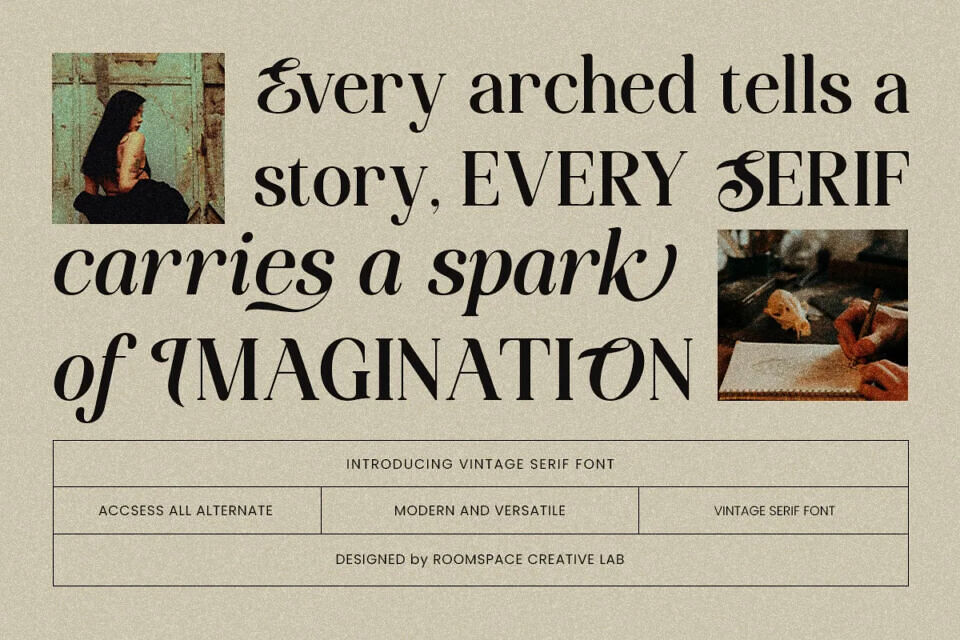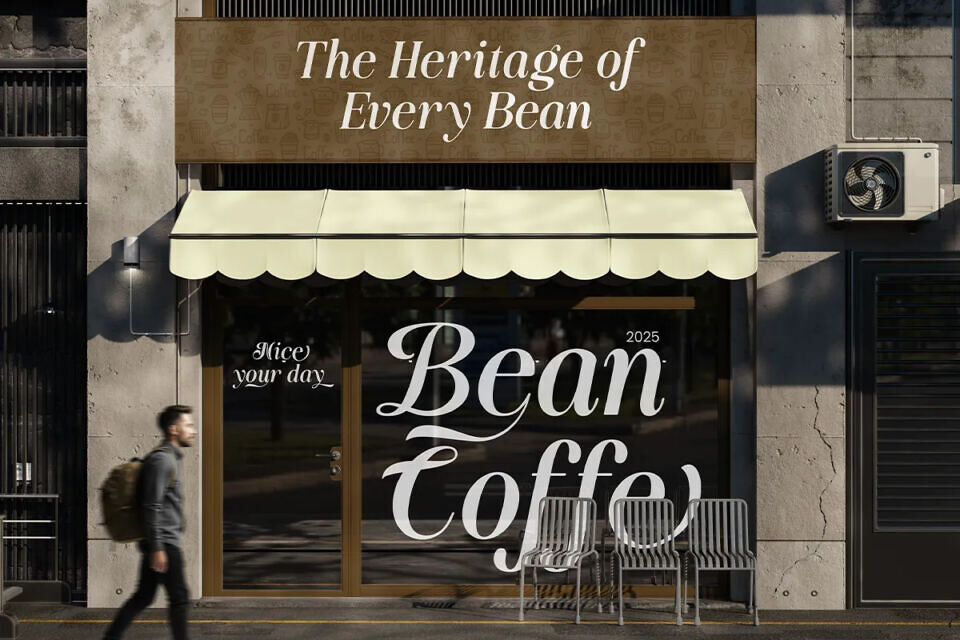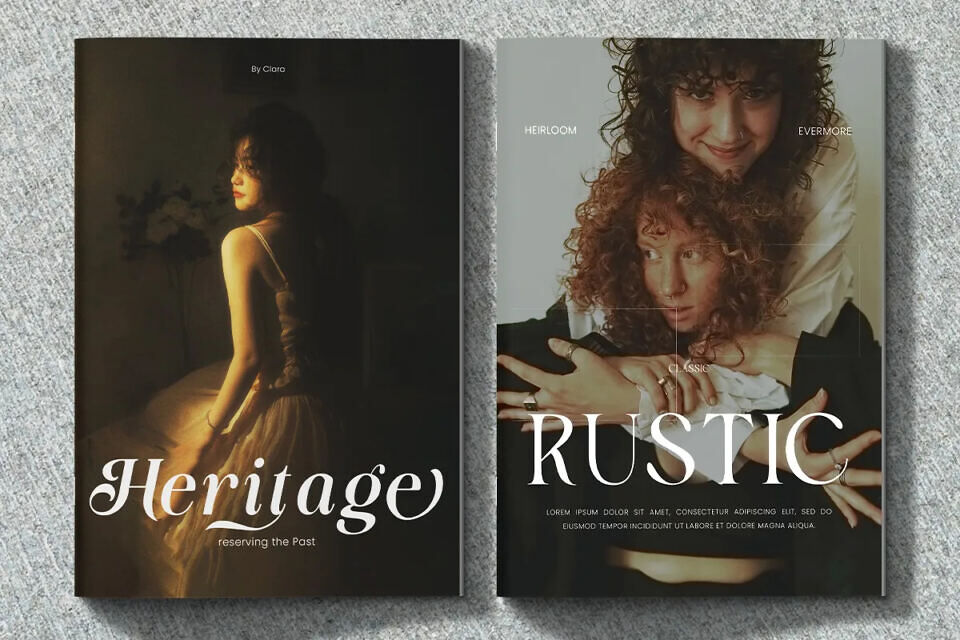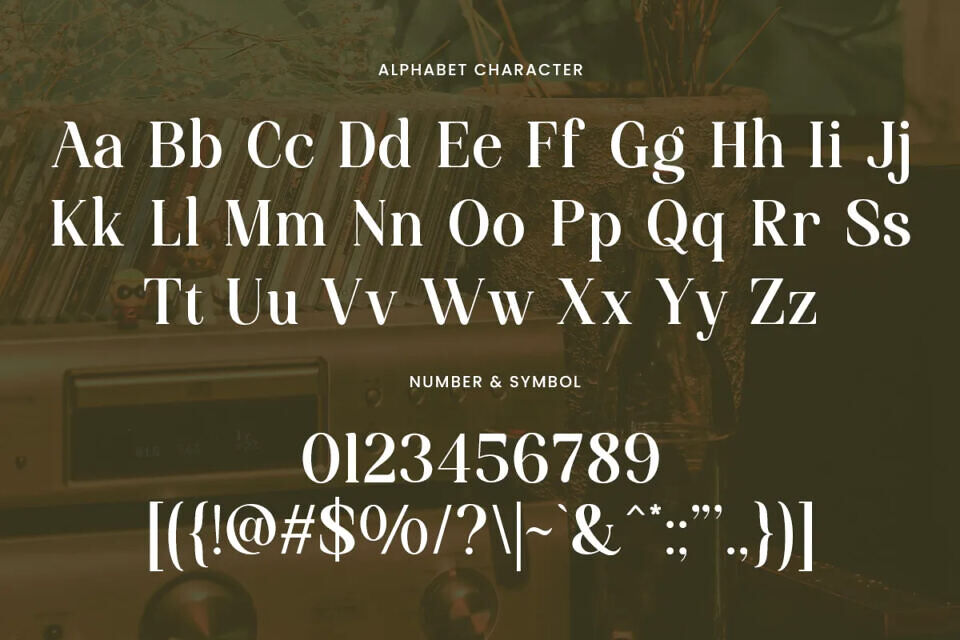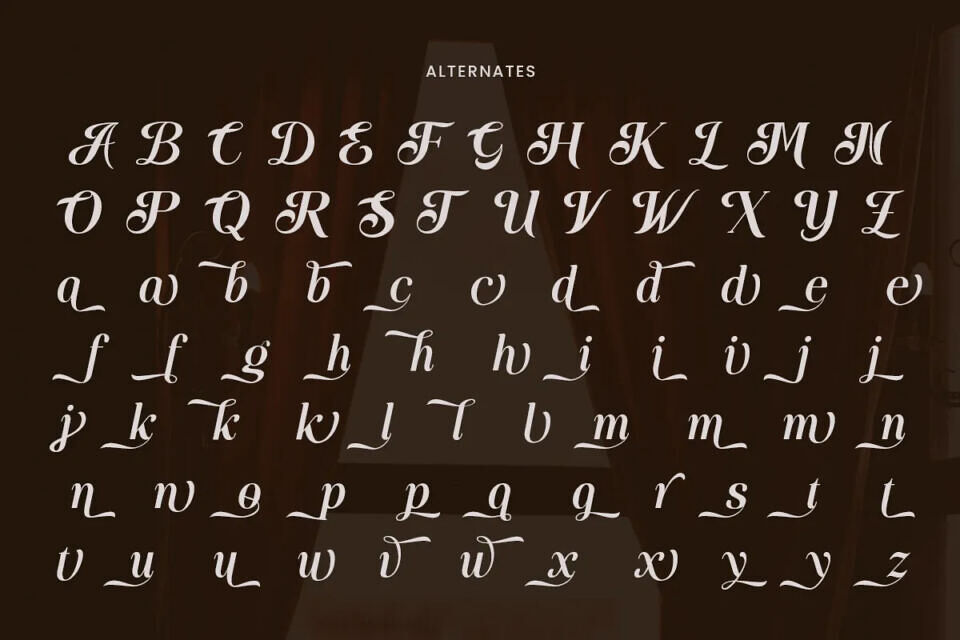
Funky Vintage Font
Funky Vintage is a bold serif display font that brings back the nostalgic charm of retro typography while staying modern and versatile. With its stylish strokes and refined details, this font blends timeless elegance with a fresh contemporary vibe. Each character in Funky Vintage is crafted with contrast and flair, featuring bold lines, elegant curves, and smooth kerning for a perfect reading experience.
It comes with stylish alternates and ligatures, also Regular and Italic, making it easy to add personality and uniqueness to your design projects. Whether you’re creating logos, branding, packaging, posters, social media graphics, editorials, or wedding invitations, Funky Vintage is your go to choice for bold and memorable typography. Try it today and give your designs a touch of retro sophistication that never goes out of style!